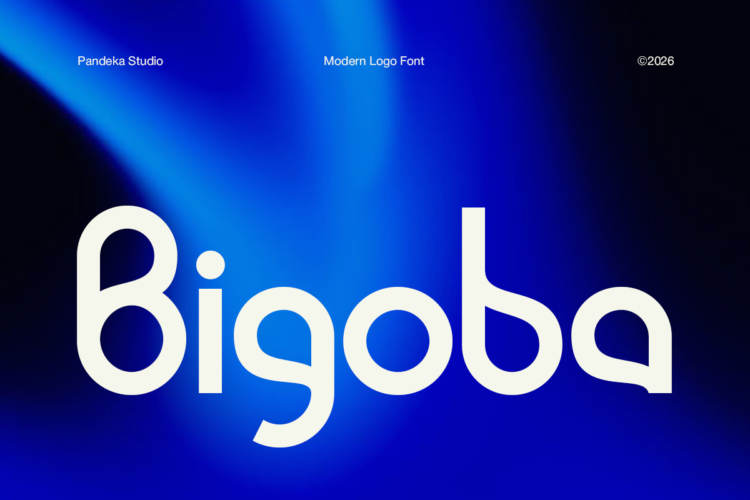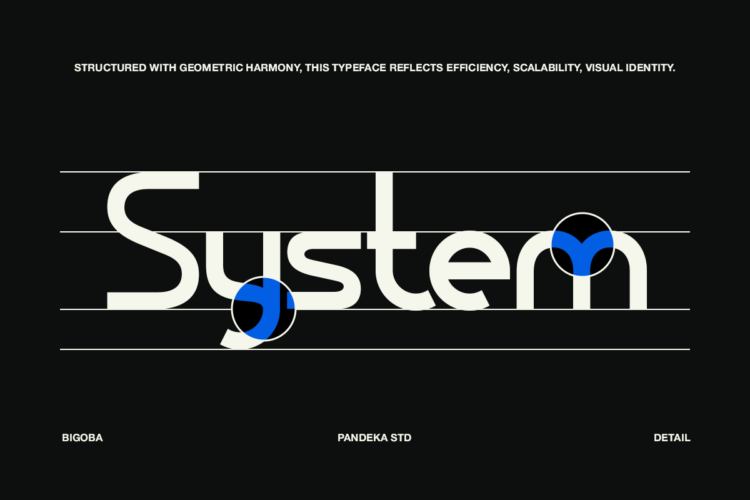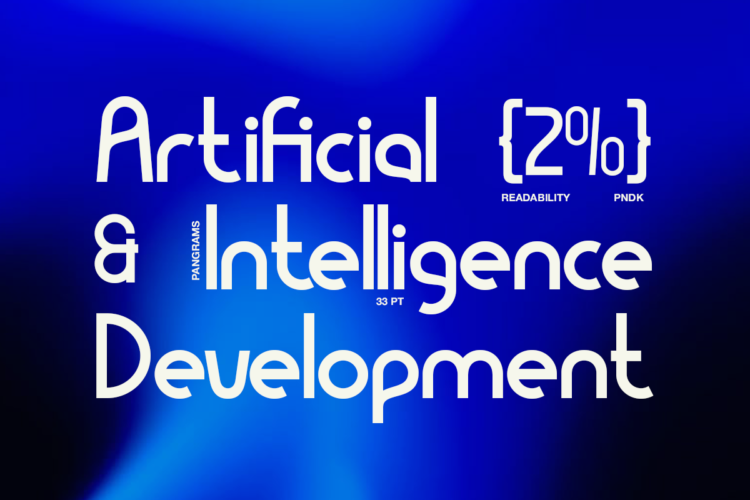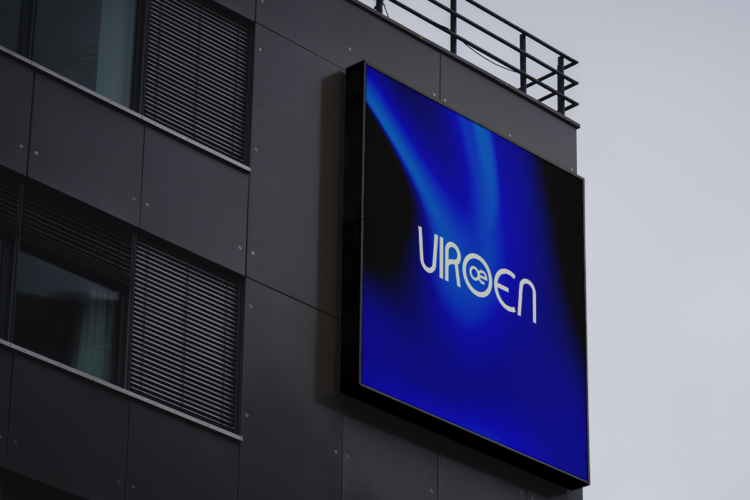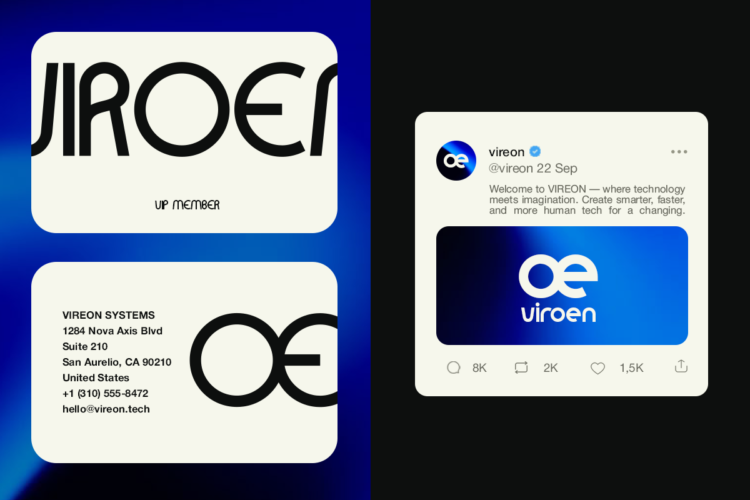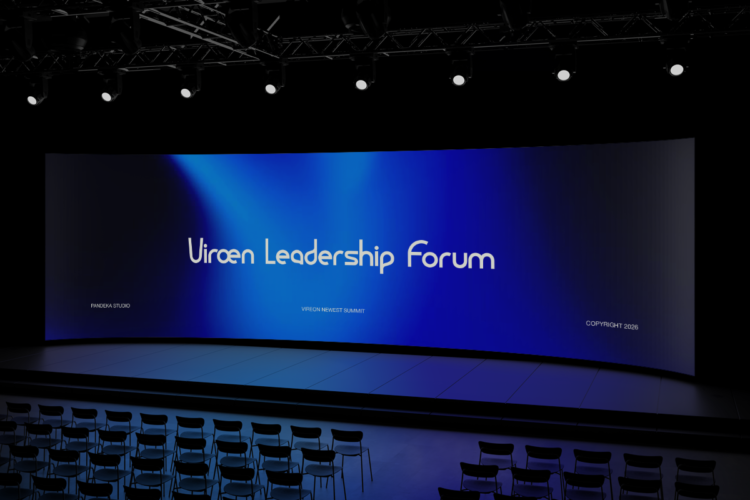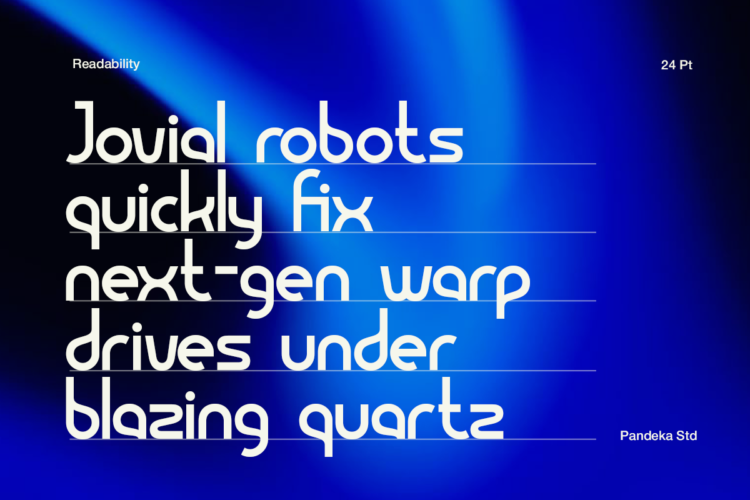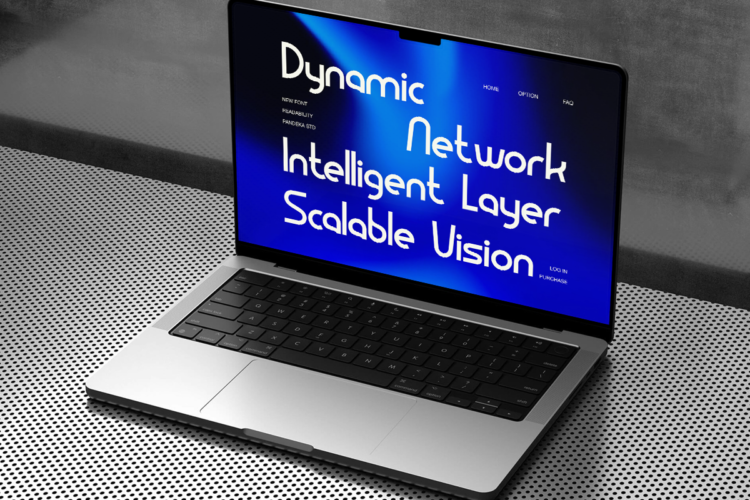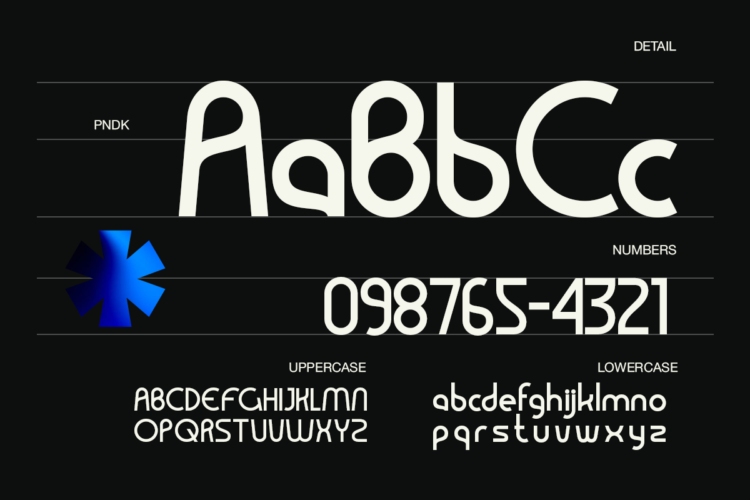
Bigoba is a modern logo font built with clean geometric shapes and smooth curves, delivering a sleek and futuristic visual identity. Its balanced structure and unique letterforms make it perfect for creating standout logos and strong brand presence in modern and tech-driven industries.
This font comes in 1 style (Regular) and includes uppercase, lowercase, numbers, punctuation, and multilingual support. Ideal for logo design, tech branding, startups, UI/UX, digital products, corporate identity, and futuristic visual concepts.